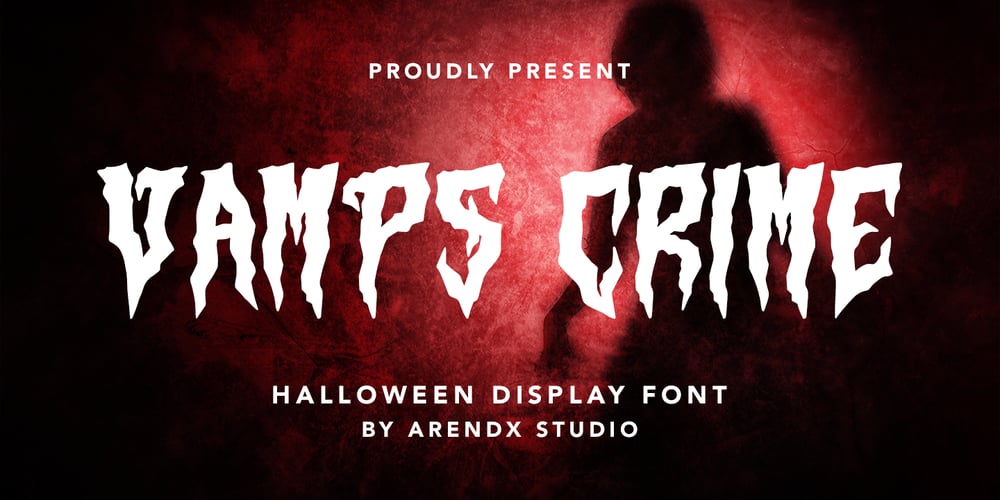
Vamps Crime Font Family was designed by Asep Rendi and published by Arendxstudio. Vamps Crime contains 1 styles and family package options. Vamps Crime – Halloween Display Font is a display font that is inspired by gothic and horror style because its shape is very unique and is perfect for any project that you will use with this theme.Vamps Crime with opentype features such stylistic alternates, stylistic sets & ligatures good for logotype, poster, badge, book cover, tshirt design, packaging and any more.Features :1.Uppercase & Lowercase 2.Multilingual support 3.Number 4.Symbol 5.Punctuation. 6.Extra Dingbat 7.Support in Mac and Windows OS -Support in design application (photoshop, illustrator, and more)